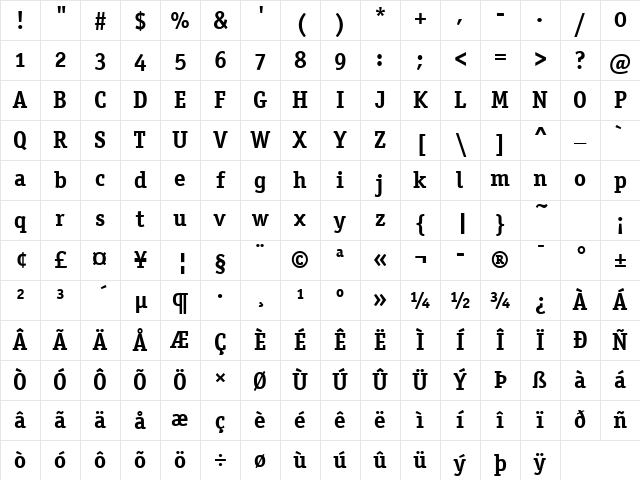
Officina Serif OS ITC TT Bold
Officina Serif OS ITC TT Family
Complete Officina Serif OS ITC TT Bold glyph index. Displaying only characters natively supported by Officina Serif OS ITC TT Bold font.
Design Context for Officina Serif OS ITC TT
Officina Serif OS ITC TT carries the refined structure of traditional serif typography, with bracketed terminals and considered proportions that communicate credibility and craft. Its bold stroke weight gives it real presence on the page.
Pro Tip: Use Officina Serif OS ITC TT for editorial body copy and considered headline work. Pair with a neutral sans for UI elements or captions to create a classic hierarchy.